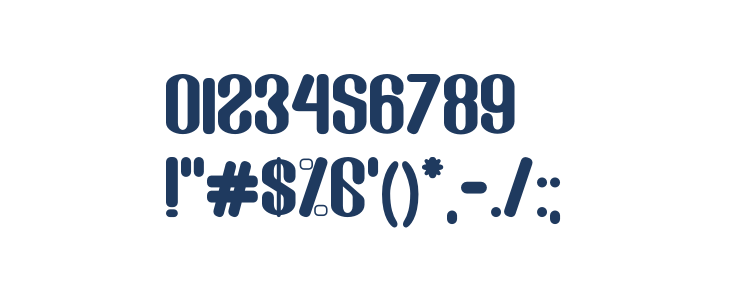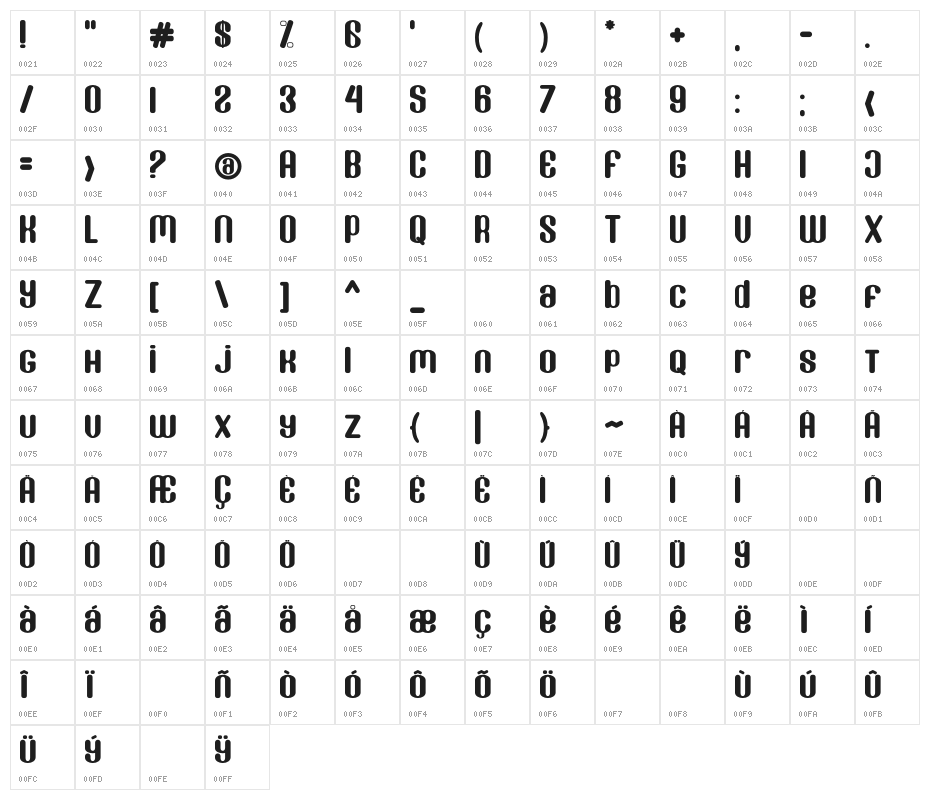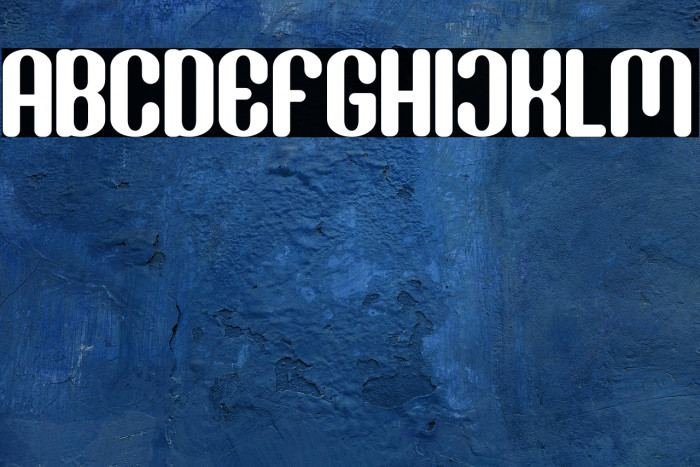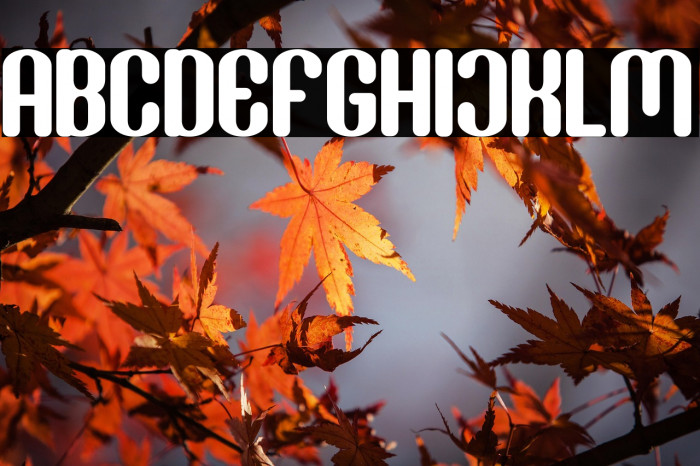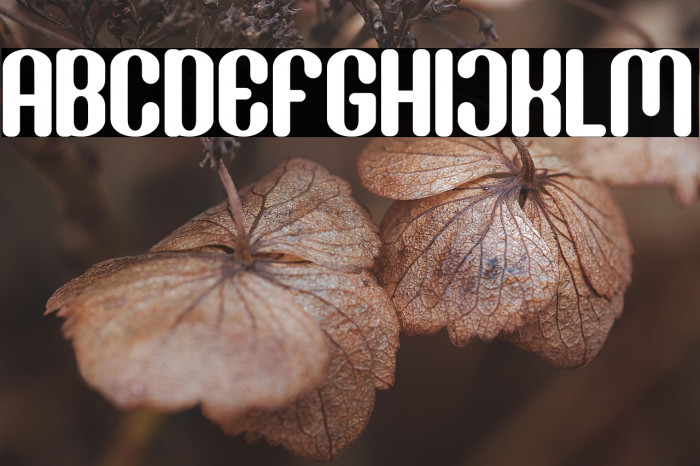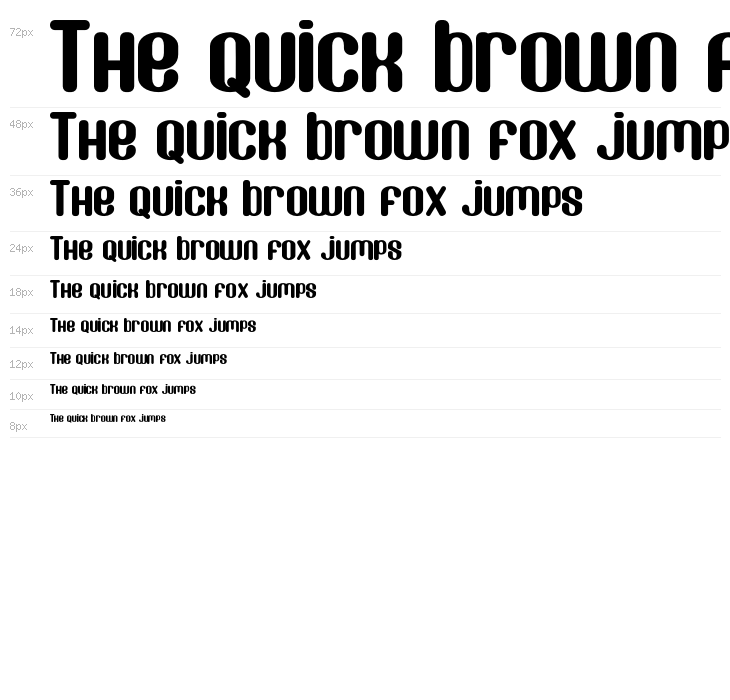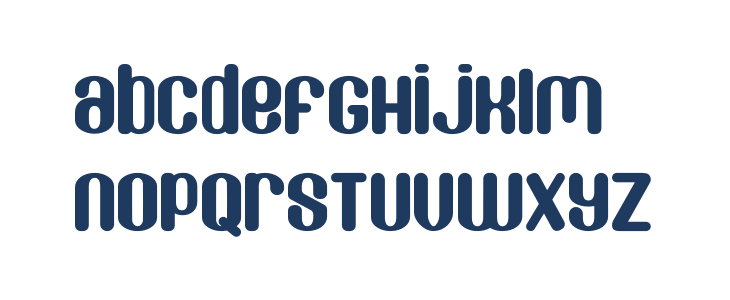
Donaldson Font
Donaldson Description
This font features a bold and rounded style, characterized by its thick strokes and smooth curves. The uppercase and lowercase letters maintain a consistent width, creating a uniform appearance. The numbers and special characters follow the same design principles, ensuring a cohesive look across all elements. The rounded terminals and lack of sharp edges give it a friendly and approachable feel, making it suitable for various design applications. Its boldness ensures high visibility, while the rounded shapes add a touch of modernity and playfulness.